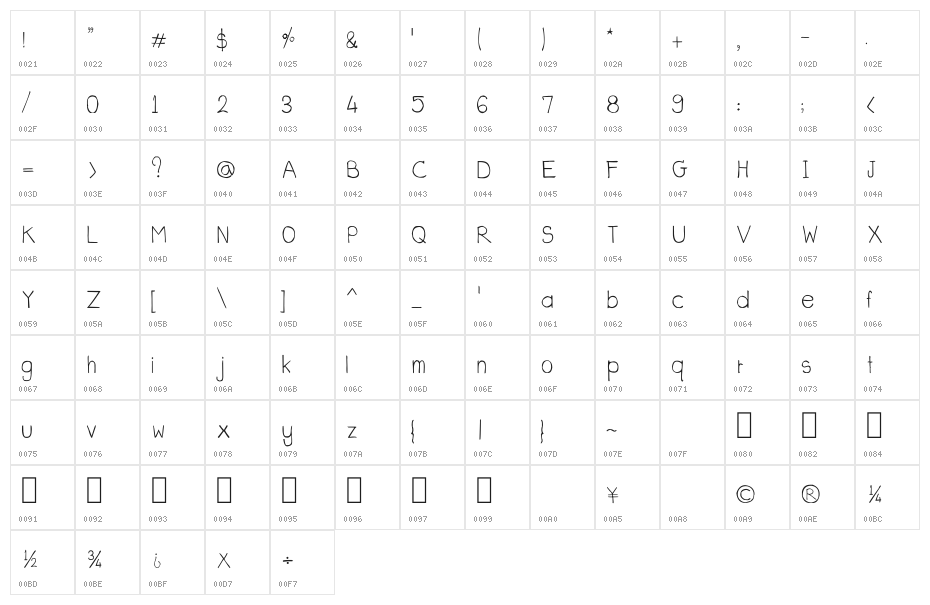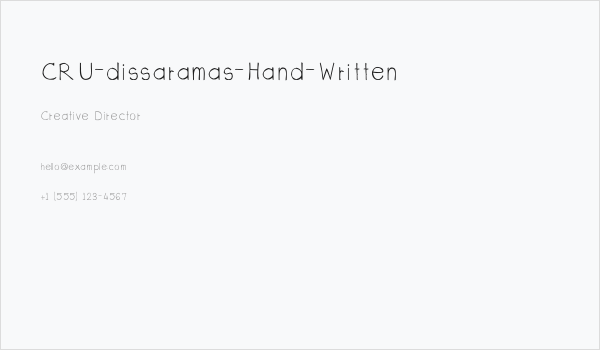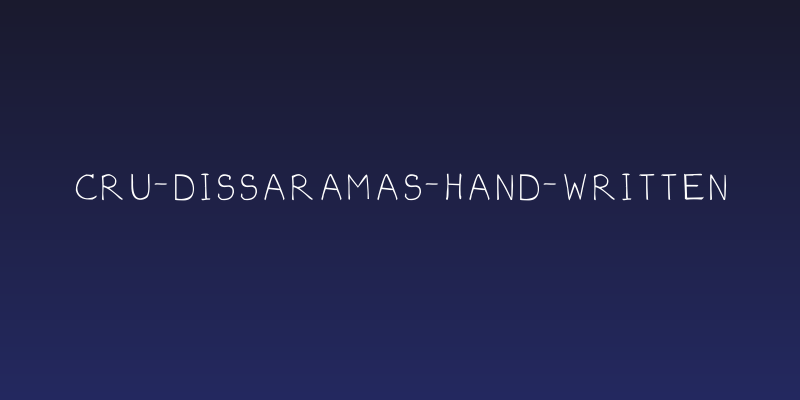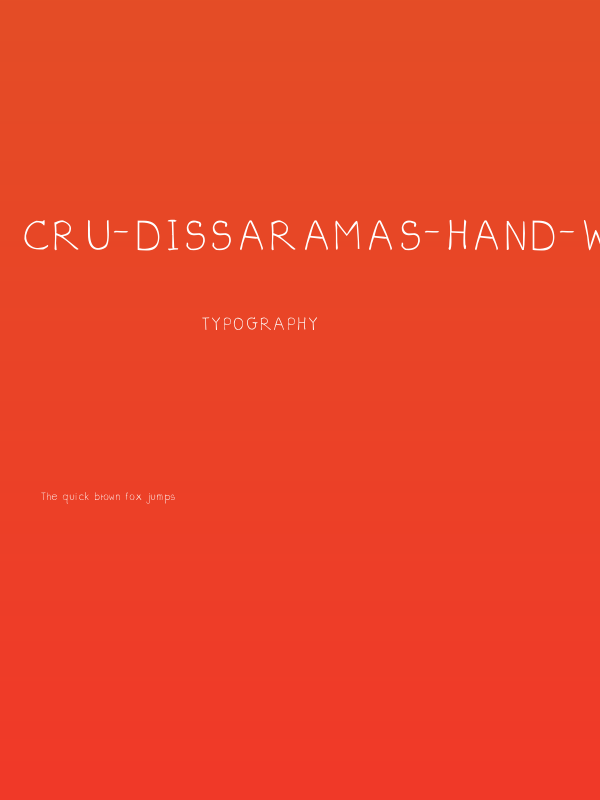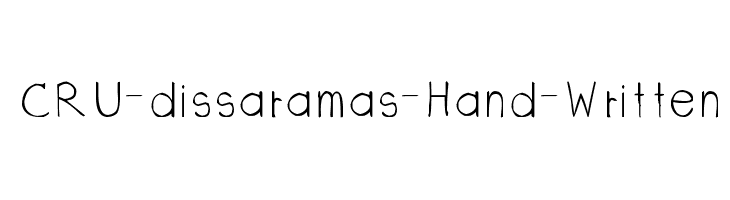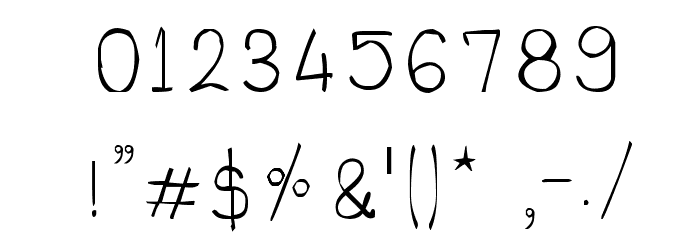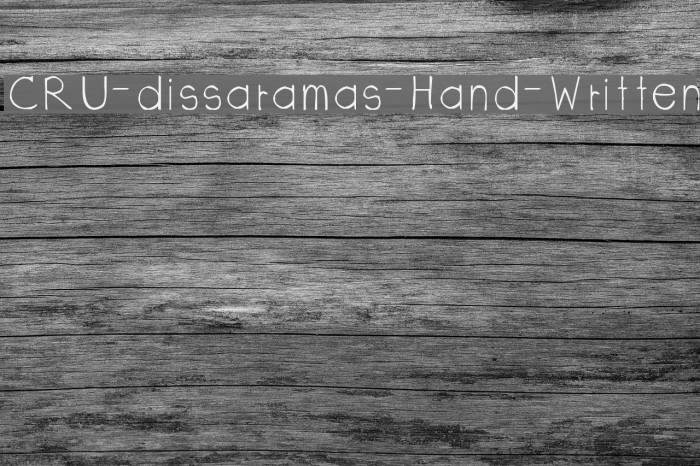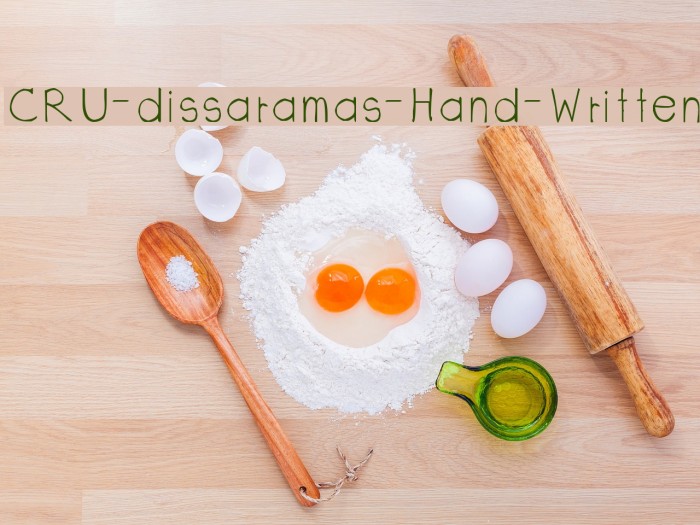
CRU-dissaramas-Hand-Written Font
CRU-dissaramas-Hand-Written Description
This font features a playful and casual handwritten style, characterized by its irregular strokes and whimsical appearance. The letters have a slightly uneven baseline, giving them a natural and organic feel. The uppercase letters are tall and slender, while the lowercase letters maintain a consistent height, adding to the font's readability. The numerals are distinct and easy to distinguish, with a quirky charm that matches the overall aesthetic. Special characters are included, maintaining the same playful style. This font is perfect for projects that require a personal touch or a creative flair.
| Overall Style | Casual |
| Use Case | Headlines, Creative projects, Personal notes |
| Proposed Projects | Ideal for greeting cards, invitations, children's books, and creative branding projects. |